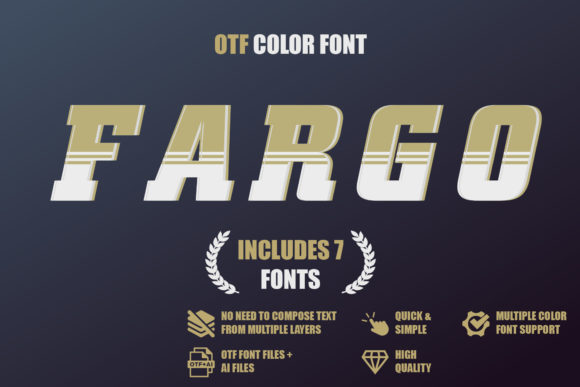
Welcome to the realm of Fargo Font, a vibrant and audacious color font that commands attention wherever it goes. Fargo's bold, thick letters dance across the screen like a symphony of hues, captivating audiences with their dynamic presence. This extraordinary font is not just a collection of characters; it's an artistic masterpiece that transforms words into works of art.
Indulge in the creative possibilities that Fargo Font unlocks. Its bold strokes and vibrant colors make it the perfect choice for creating captivating headlines, eye-catching social media posts, and stunning marketing materials. Imagine your brand's logo or website adorned with Fargo's captivating letters, leaving a lasting impression on your audience.
Fargo Font is not just aesthetically pleasing; it's also incredibly versatile. Its bold, chunky style effortlessly adds a touch of sophistication and fun to any project, whether you're designing posters, flyers, invitations, or even T-shirts. Unleash your creativity and let Fargo Font elevate your designs to new heights.